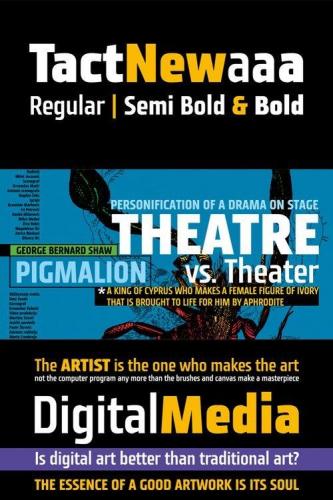
DesignOptimal - Tact New Font Family
Turkish Support Tact New family is geometrically sans serif font, with 3 weights, condensed looks glyphs, with an alternative glyph set to improve its use